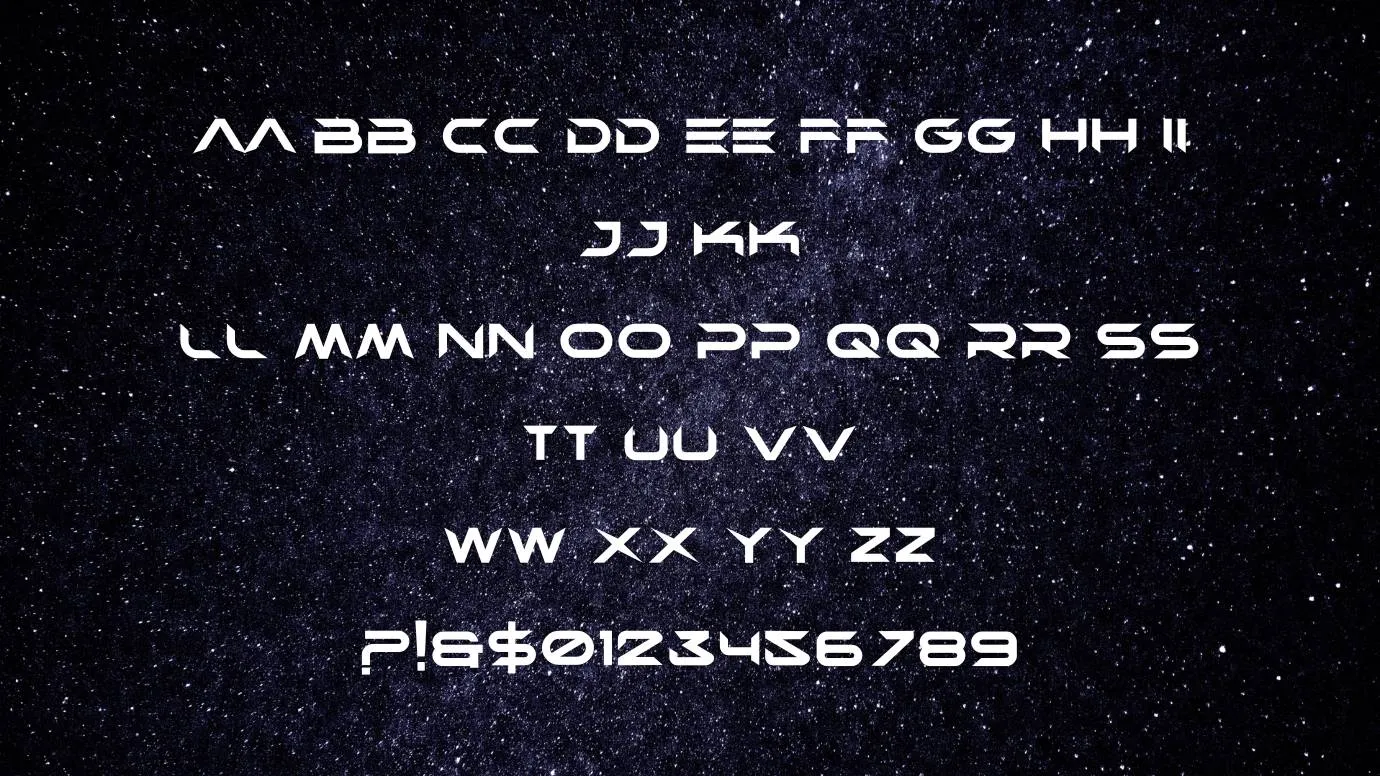
Here, we will introduce Rebras Font which comes in the display font family. This font has a broken look and displays characters including general punctuations, numbers, and lowercase letters. This unique lettering font was designed by hayoyuka8. It gives a futuristic look to your text design purposes.
What kind of Font is Rebras?
This classic typeface lies in the classification of the display family of fonts. This typeface is great for creating cool text design that increases the uniqueness of your design. The bold and curved look of this font is available for different design projects. Its eye-catching glyphs are so helpful for different text design purposes that you can pick them for industry purposes.
If anyone wants to create a pairing with a similar font for a more unique and attractive look design then they can choose aero font for this purpose. The generator tool of this font is available for different types of text-converting purposes. This font is also specified in HTML and CSS.
Available Weights and Styles in Rebras Font
This stunning typeface contains a total of two styles Regular and Italic. Both of these styles are very classic and attractive for various designs. The Bold style is perfect for headings, headlines, and other display-type projects. And the second one is Italic, it is used for different designs, and a charming and subtle look is required.  All designers use these styles for a subtle, bold, classic, and impressive look.
Rebras Font
Font Details
NameRebras Font
TypeDisplay
Designerhayoyuka8
Similar Fonts to Rebras Font
Rebras Font is a bold and classic font that can be paired well with different types of textures.
By making a strong and proper pairing of this typeface with other complementary fonts you will notice more classic results.
Rebras Font Family (Includes 02 Typeface)
• Rebras Regular
• Rebras Italic
Usage Guidelines for Rebras Font
Due to its advanced features, this unique lettering font is suitable for eye-catching advanced features. You can use this amazing and unique look font for amazing types of text designing purposes and image design purposes. It is also suitable for creating watermark logo designs and animated logo design purposes.
Rebras Font
It is suitable for different posters, greeting card designs, and amazing-look banner design purposes. YouTubers can easily utilize this font for their video titling purposes, and heading purposes for different videos. It is best for making a strong pairing with wwe raw font for unique designs.
Is Rebras a good font?
Because of its keen and clean features, this typeface is best for various projects. Many designers use this typography because of its attractive features.